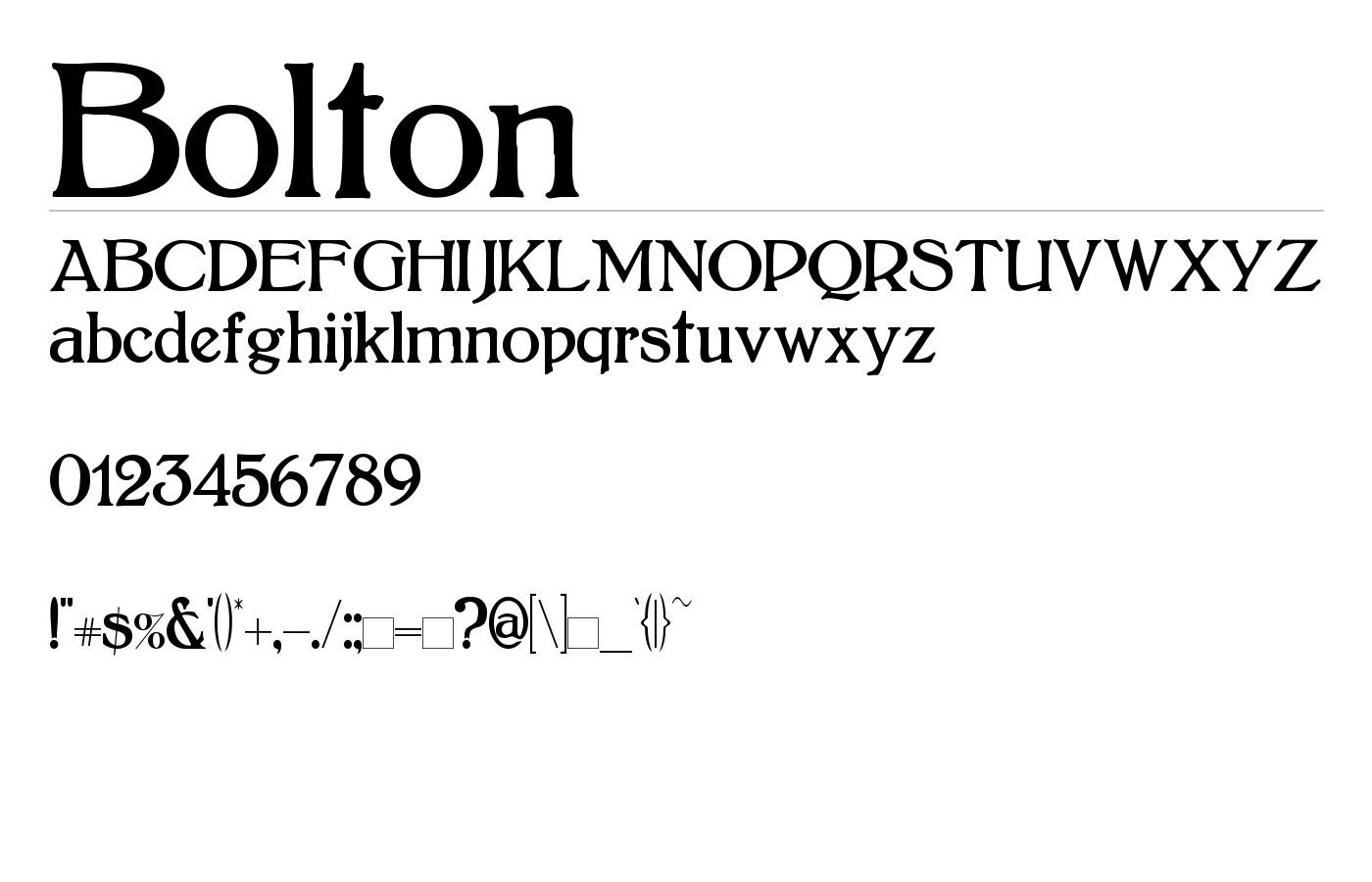
Bolton is a serif typeface with a distinctive, slightly irregular style that blends traditional elegance with a handcrafted feel. Its moderate contrast, bracketed serifs, and unique letter shapes give it a warm, approachable personality, making it ideal for editorial design, branding, and projects aiming for a classic yet inviting look. This font works well in headlines and display text where its character can truly shine.
Bolton Font